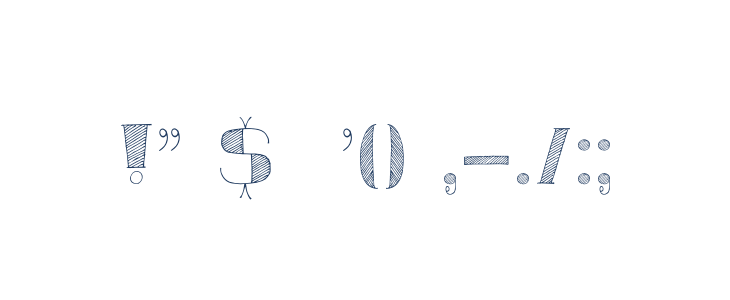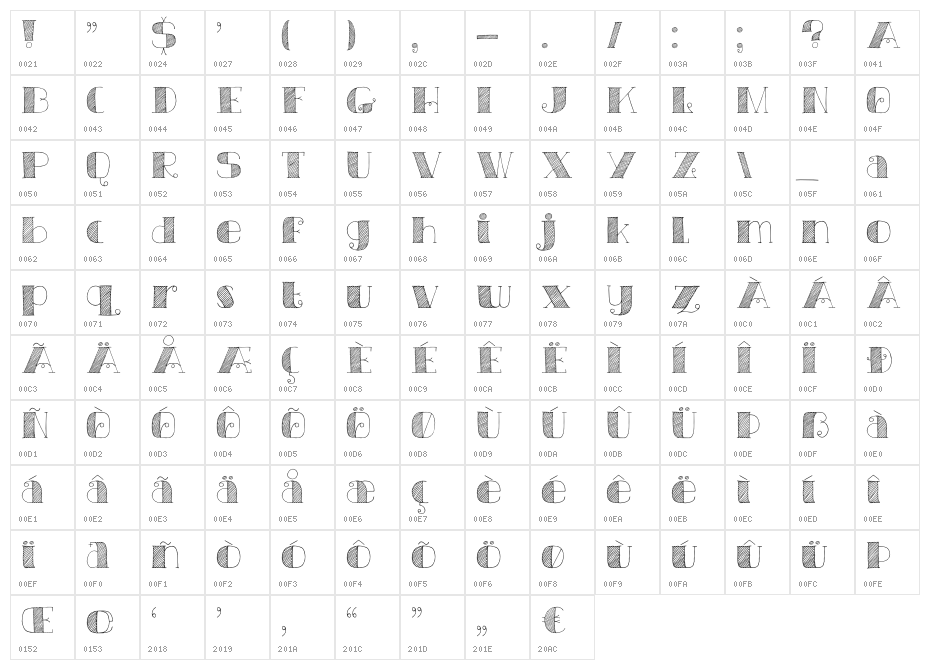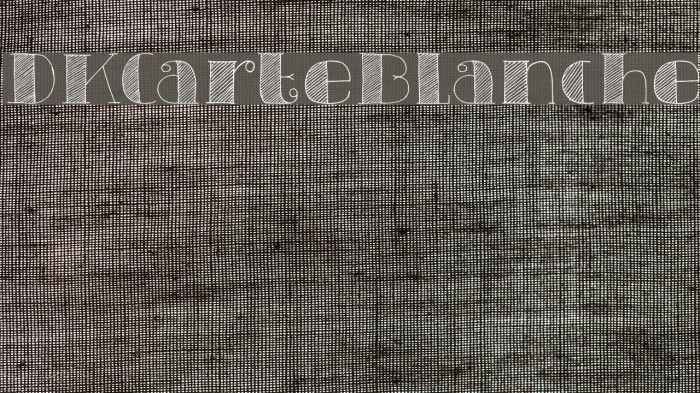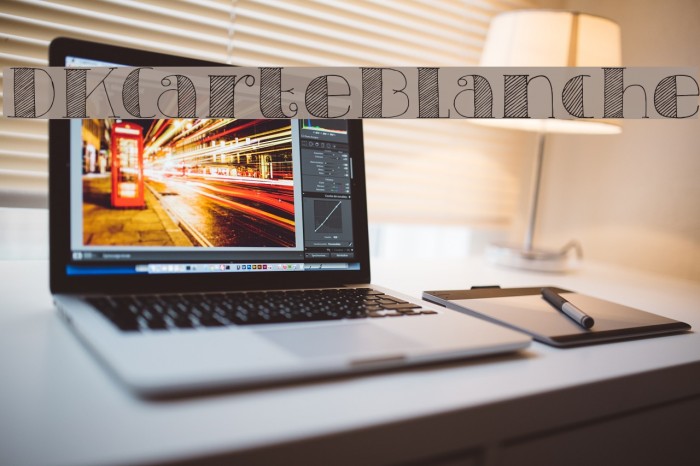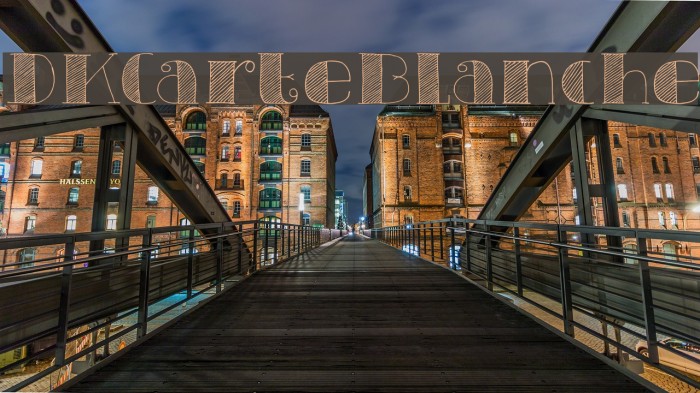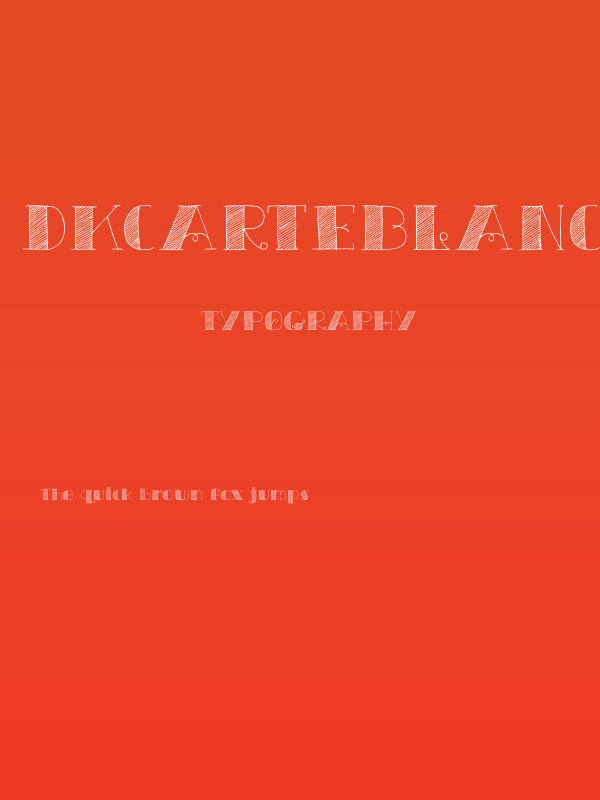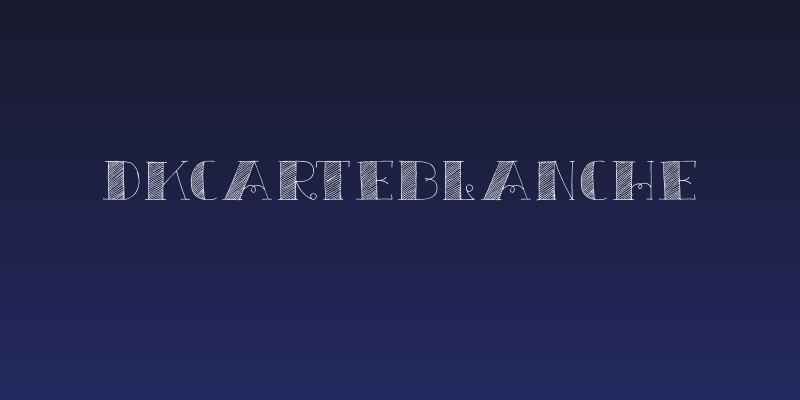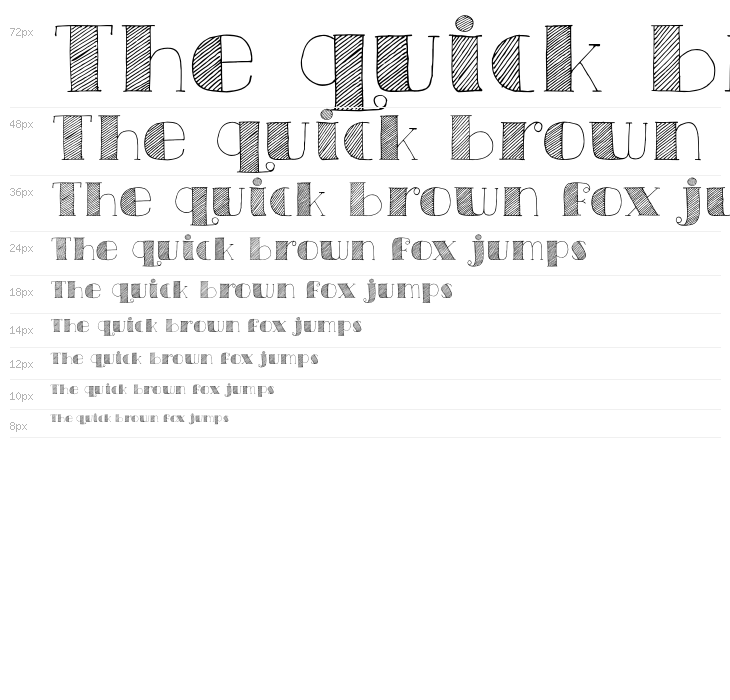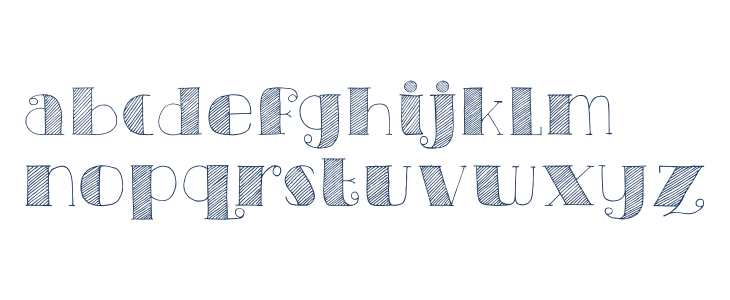
DKCarteBlanche Font
DKCarteBlanche Description
This font features a unique and playful design with a hand-drawn aesthetic. Each character is adorned with intricate swirls and curls, giving it a whimsical and decorative appearance. The letters are filled with diagonal hatching, adding texture and depth. The uppercase and lowercase letters maintain a consistent style, with the uppercase being more pronounced and bold. The numbers and special characters follow the same decorative theme, ensuring a cohesive look across all elements. This font is perfect for projects that require a touch of elegance and creativity.
| Proposed Projects | Ideal for invitations, greeting cards, branding, and creative posters. |